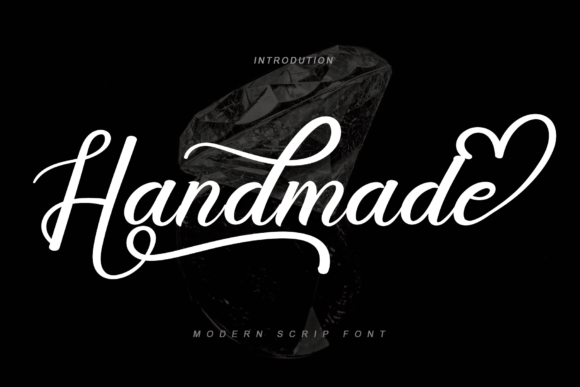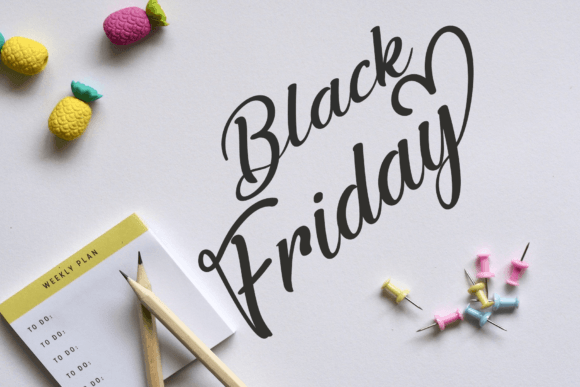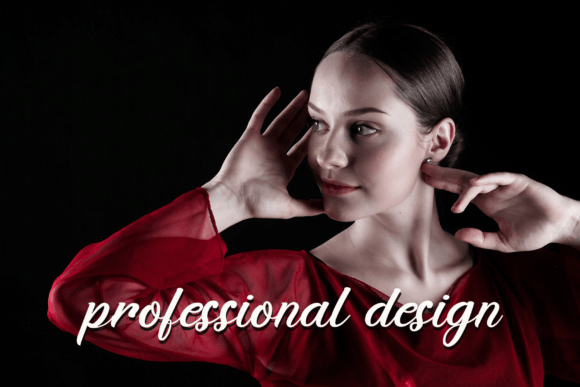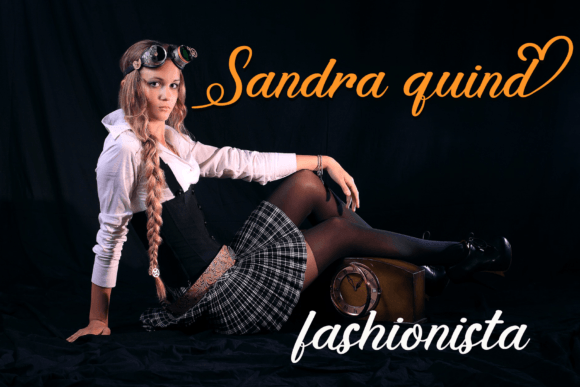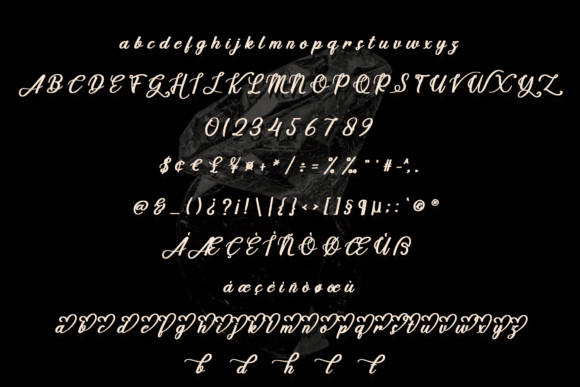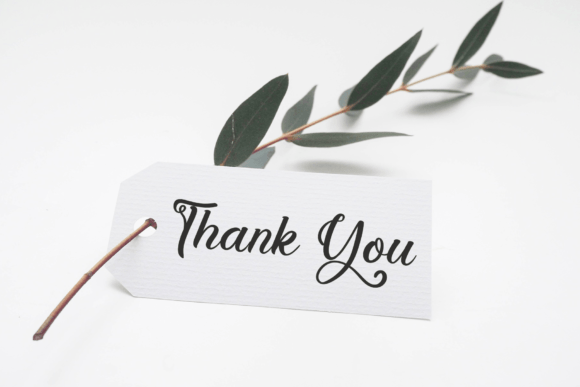
“Handmade” sounds like a stylish handwritten font with a contemporary atmosphere and impeccable form, drawing inspiration from timeless classic calligraphy. Fonts with a balance between thin and thick strokes are often versatile and can enhance the visual appeal of various design projects.
The description suggests that “Handmade” is not only carefully crafted but also balanced and varied to enhance the beauty of your projects. Fonts with these characteristics can be valuable additions to design contexts where both style and readability are important.
Consider incorporating “Handmade” into your creative projects, whether you’re working on logos, invitations, or other design elements. Explore how its contemporary atmosphere and balanced form can elevate the overall aesthetic and make your designs extraordinary.
Enjoy using “Handmade” in your design endeavors, and may it become a versatile and stylish choice for enhancing the beauty of your projects. Fonts like “Handmade” can play a significant role in making your designs stand out with a touch of timeless elegance.